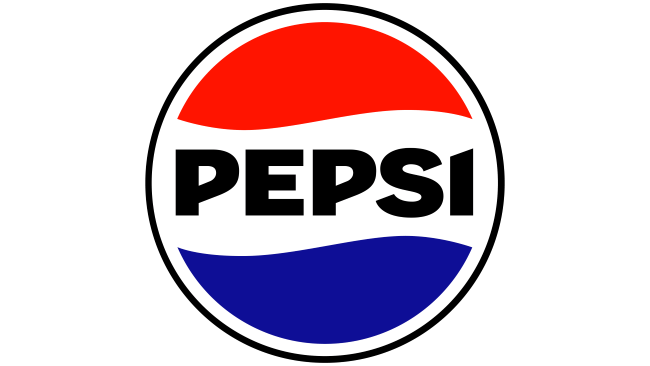
Pepsi font — a custom typeface for the current 2023 logo built around Hedra Bold for the P and E and Copihue Black for the S, with an older logo iteration available as a free download — has undergone one of the most watched and discussed brand identity revisions in recent consumer goods history. The 2023 rebrand brought the Pepsi wordmark back into the globe mark after a decade of separation, tightening the visual system considerably and applying a bolder, more geometric sans-serif treatment to the lettering that aligns with a broader industry movement toward confident, high-contrast brand typography. The freely available Pepsi (old logo) Font gives designers access to the previous era’s typographic approach.